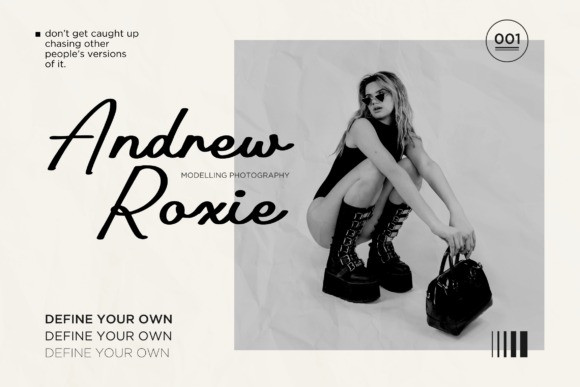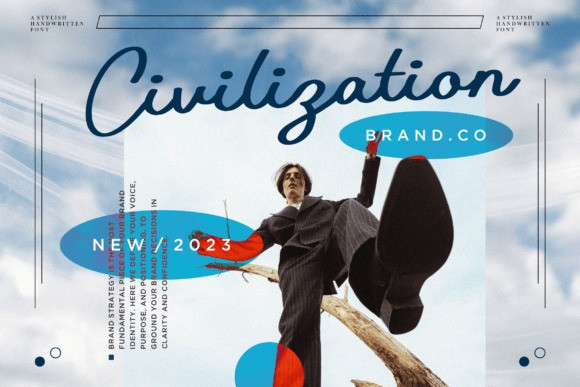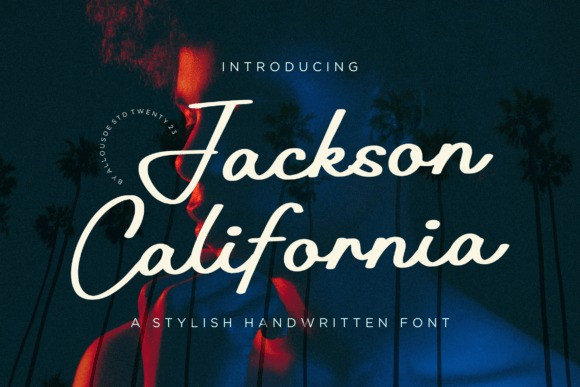
Jackson California Font
Jackson California Font – A Stylish Handwritten Font. Jackson California is perfect for product packaging, branding project, magazines, social media, weddings, or just used to express words above the background.